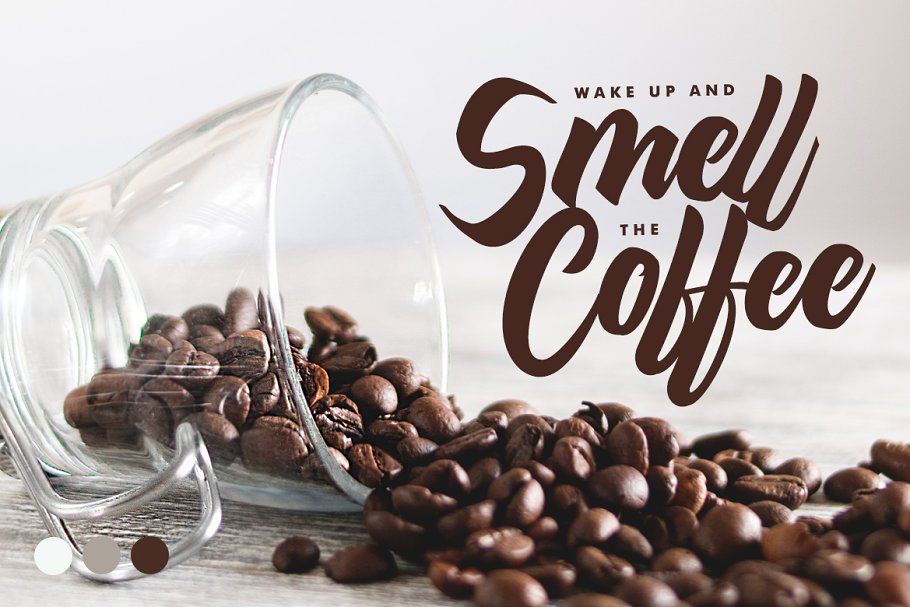
Maghody Bold Script Font
This is a bold script with strong styles and circle movement. The idea is to help designers to combine and incorporate together of the fonts in your design creative work. Introducing Maghody script font. Delichia Font designed and shared by Wacaksara Co.. Maghody Bold Script Font is a script typeface with bold and strong natural movement, this font is great for your various amazing project.  Maghody font is perfect for many different project such as logos & branding, invitation, stationery, wedding designs, social media posts, advertisements, product packaging, product designs, label, photography, watermark, special events or anything.